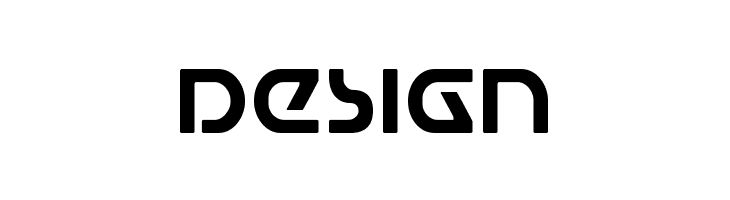
Juxtapose Free Regular Font
- Font: Juxtapose Free Regular
A bold, futuristic font with geometric shapes and rounded edges.
( Fonts by Omega Font Labs )